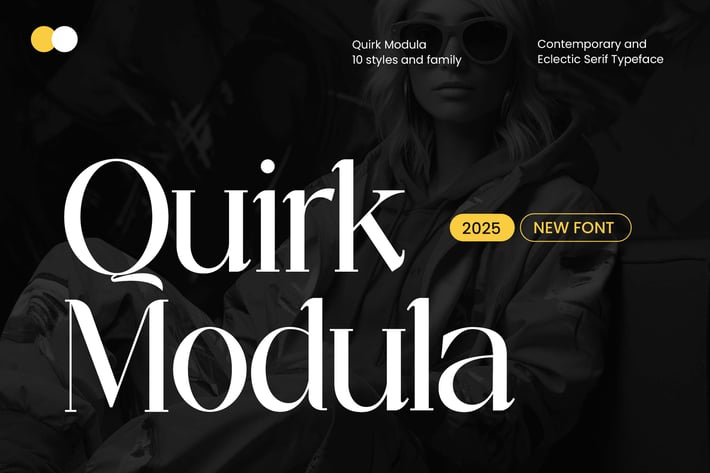
Quirk Modula Serif Font Family
Introducing our new product the name is Quirk Modula Serif Font Family. Quirk Modula Serif Font Family that feels beautiful classy, elegant, and modern. This font is perfectly suited for a wide variety of projects, such as signature, stationery, logo, wedding, typography quotes, magazine or book covers, website headers, clothing, branding, packaging design, and more. Also, fashion-related branding or editorial design displays both masculine and feminine qualities.